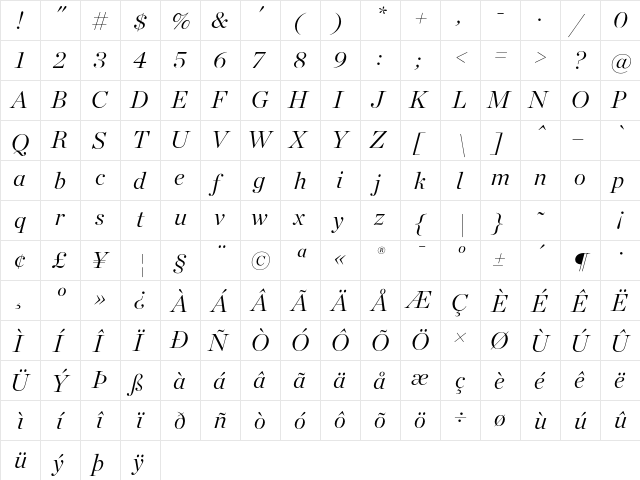
Chronicle Display Light Italic Font Preview
| Foundry | Hoefler & Frere-Jones |
| Designer | Hoefler & Frere-Jones |
Design Context for Chronicle Display Typeface
Chronicle Display brings ornamental detail and strong personality to headlines and identities, where visual impact matters more than quiet functionality. The dynamic lean of this cut emphasises speed and emphasis in any layout. The delicate stroke weight brings airiness and refinement to layouts.
Font Pairing: Pair with a clean neutral sans-serif for body copy to let Chronicle Display's character lead without overwhelming the composition.
Pro Tip: Treat Chronicle Display as the centrepiece of your typographic hierarchy. One strong heading set in a decorative face can carry an entire layout.